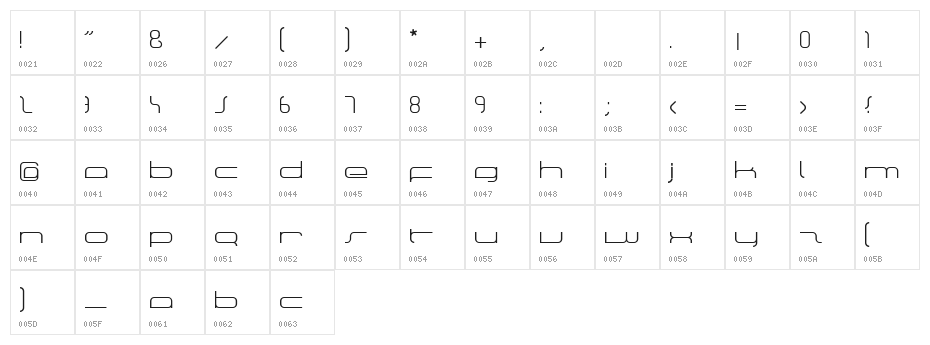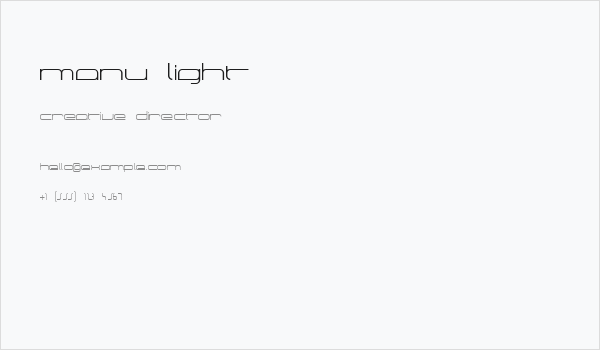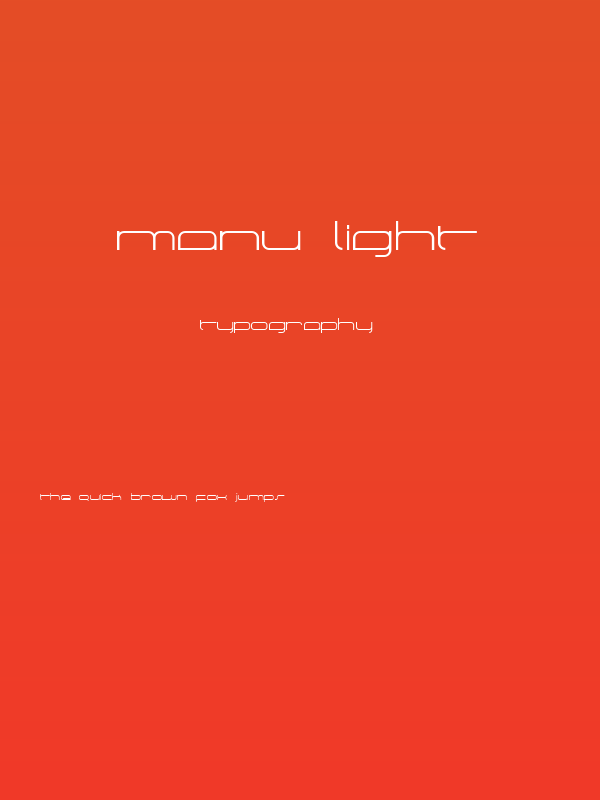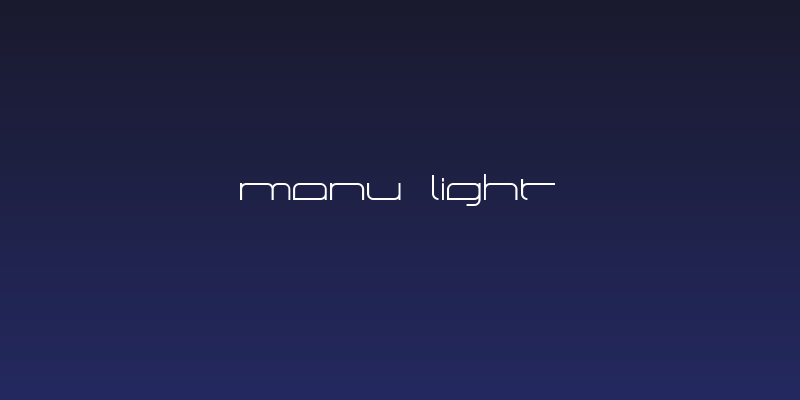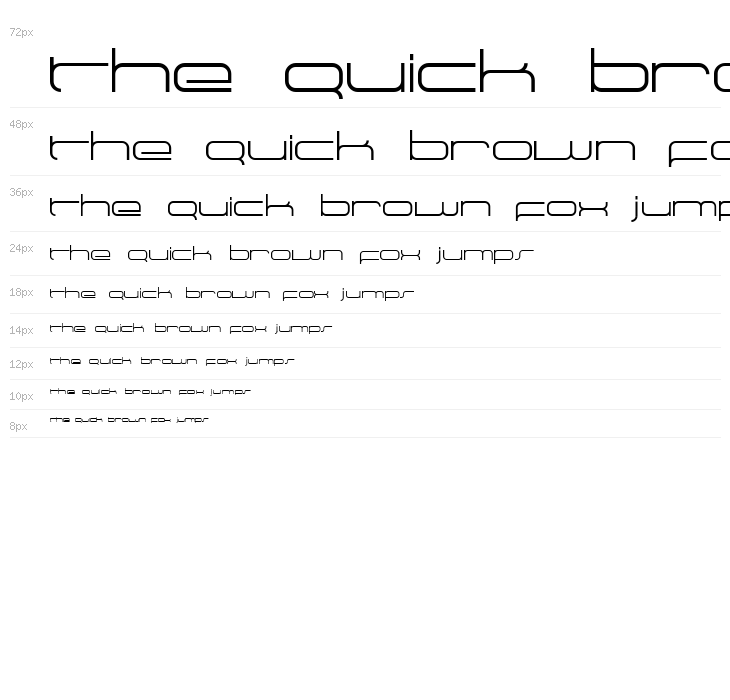
manu light Font
manu light Description
This font features a sleek, modern design with a geometric and minimalist aesthetic. The characters are composed of thin, uniform lines with rounded corners, giving it a futuristic and clean appearance. The uppercase and lowercase letters maintain a consistent height, contributing to its streamlined look. The numerals and special characters follow the same design principles, ensuring a cohesive style throughout. The font's simplicity and clarity make it highly legible, while its unique structure adds a touch of sophistication and elegance.
| Proposed Projects | Ideal for tech branding, modern web design, futuristic posters, and innovative product packaging. |